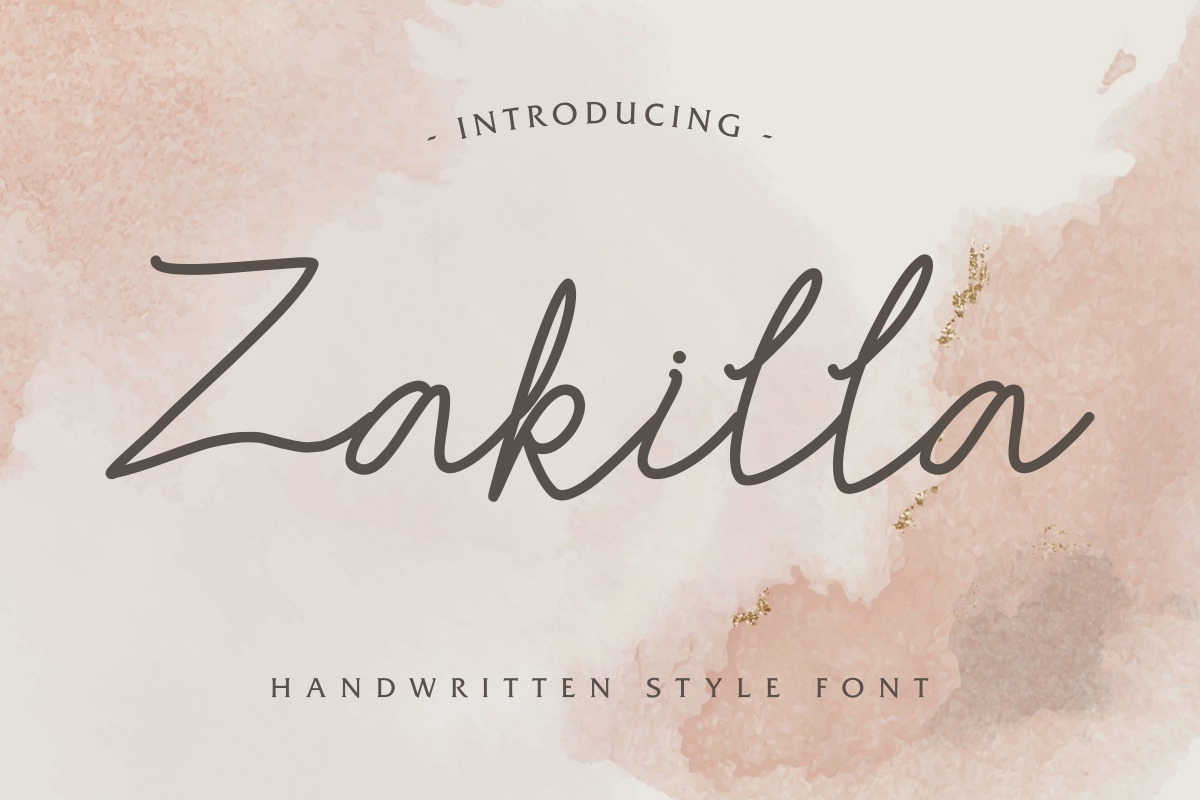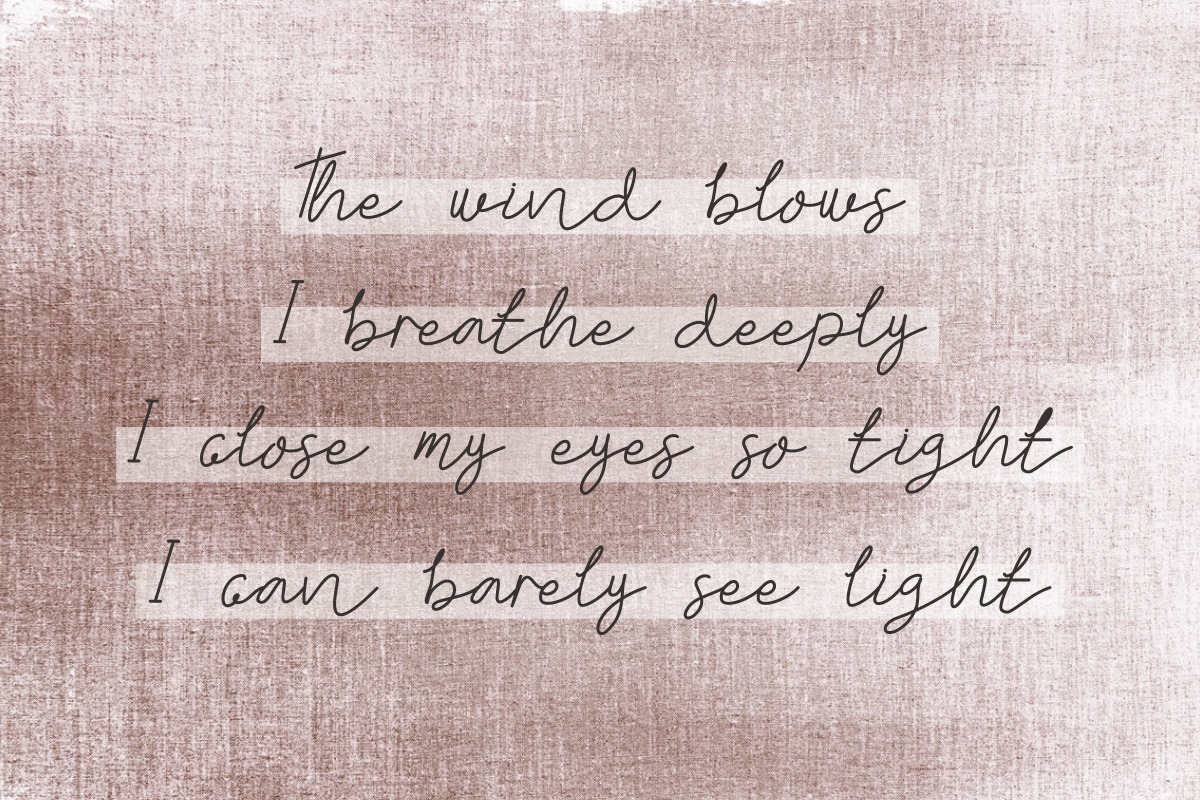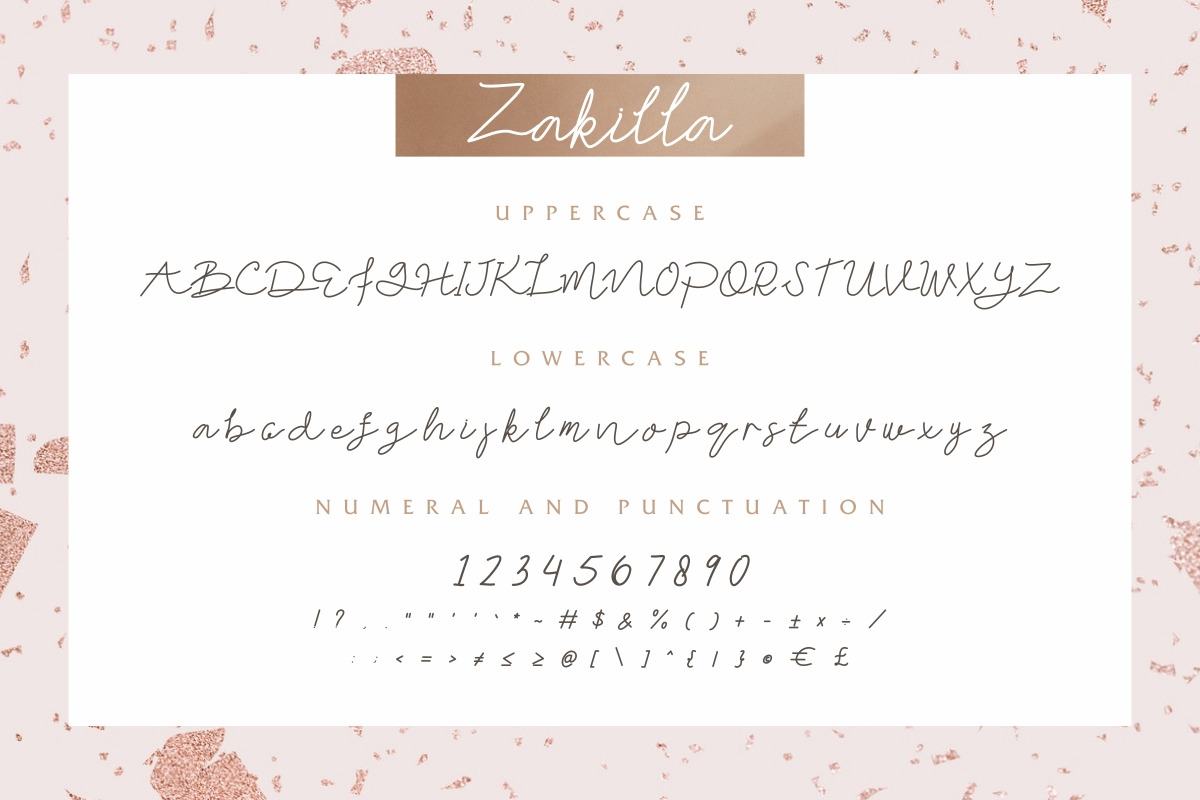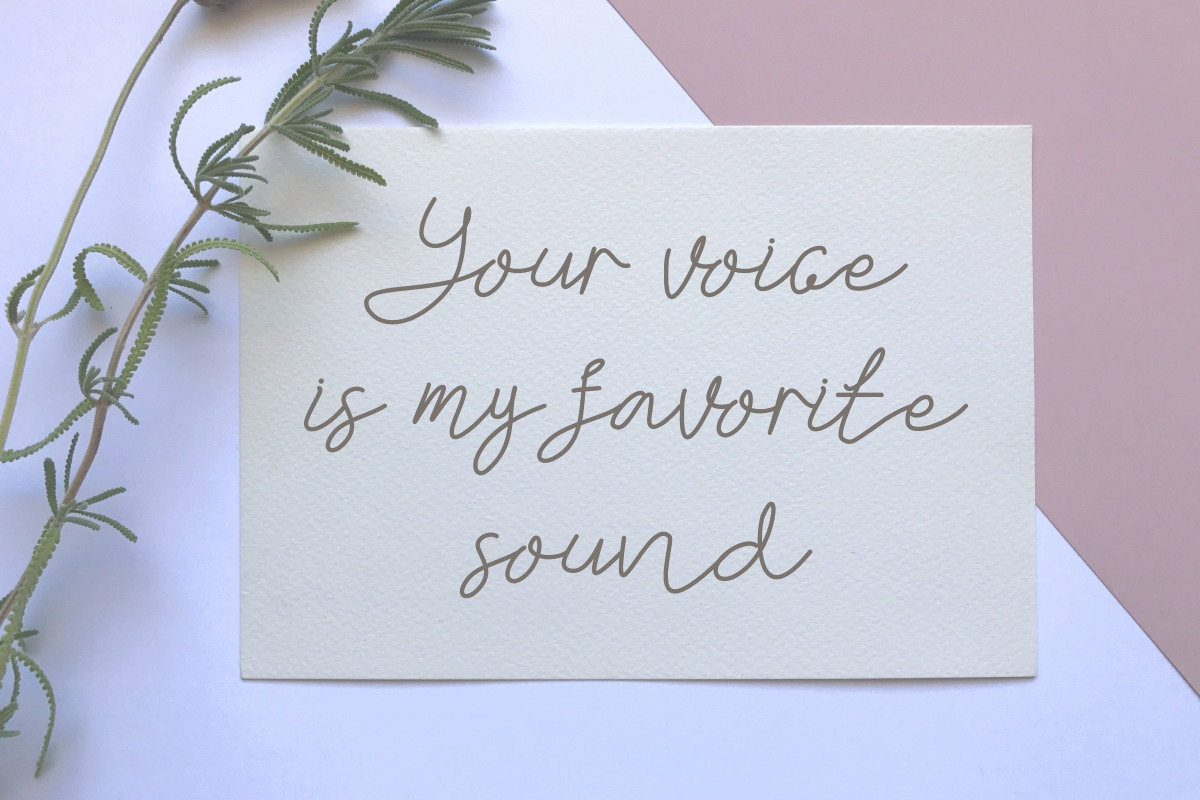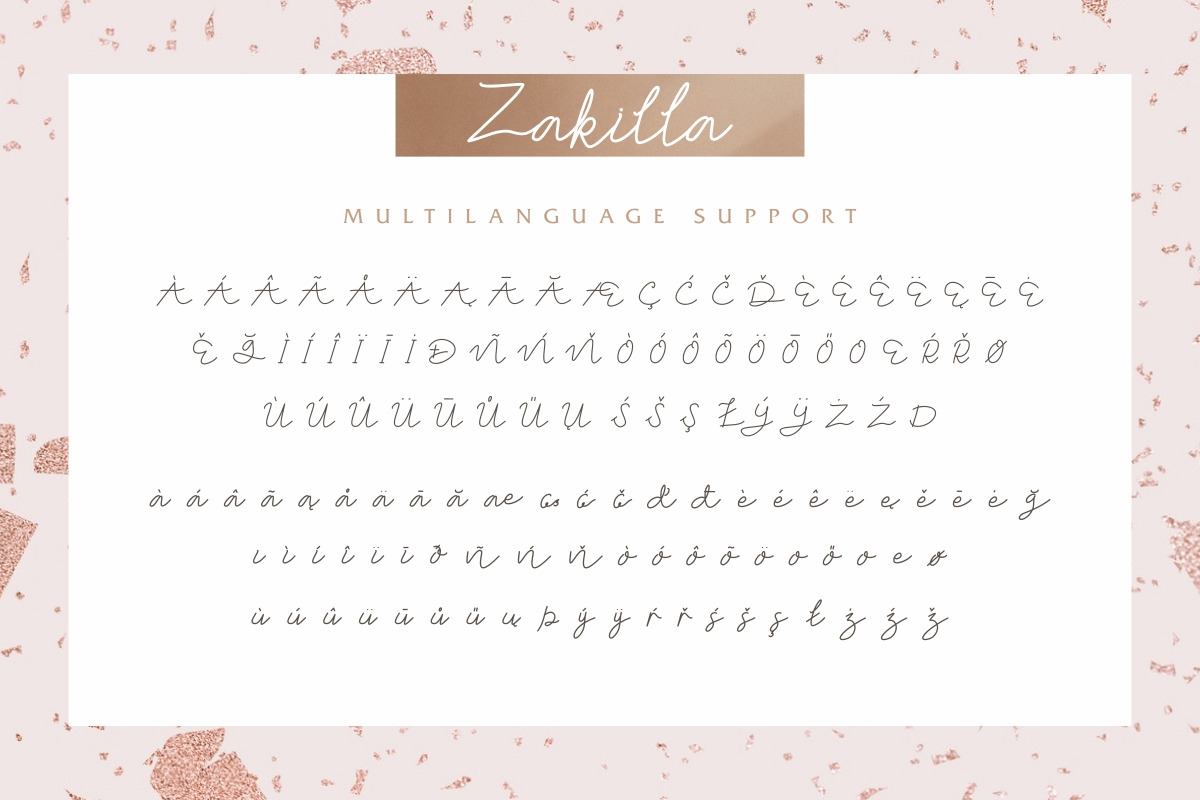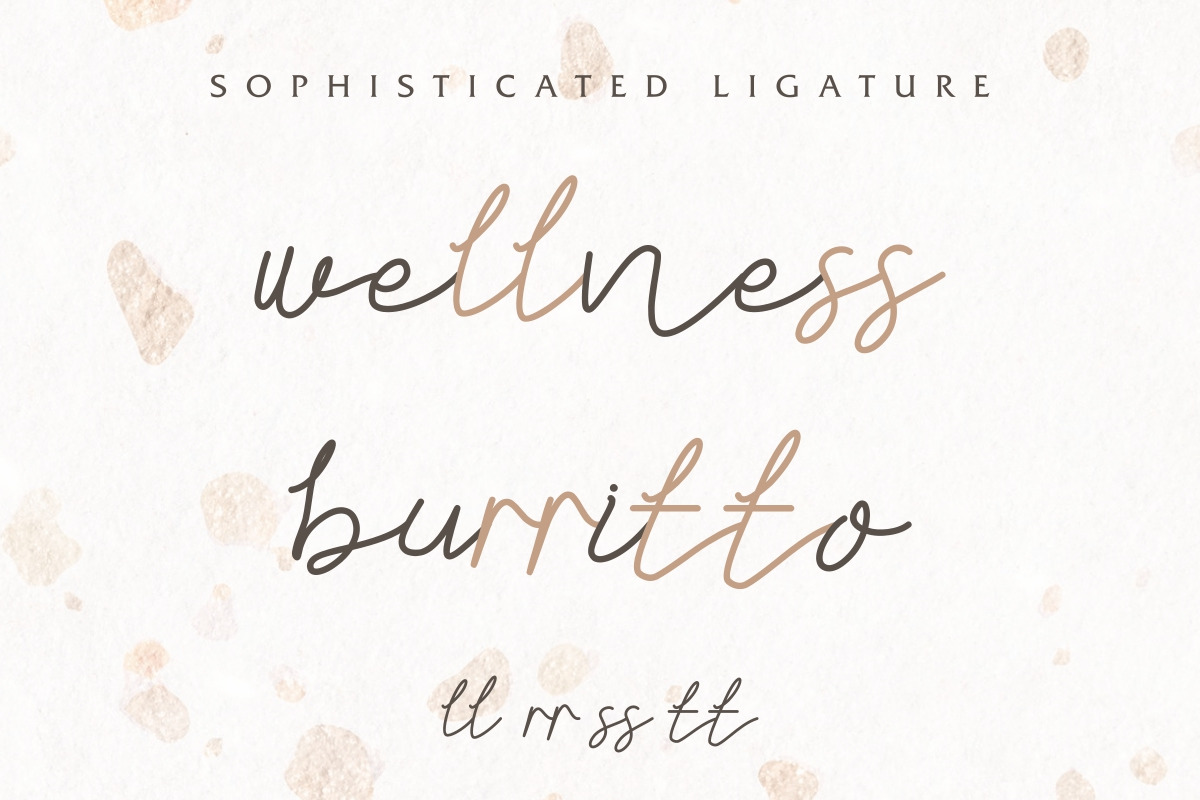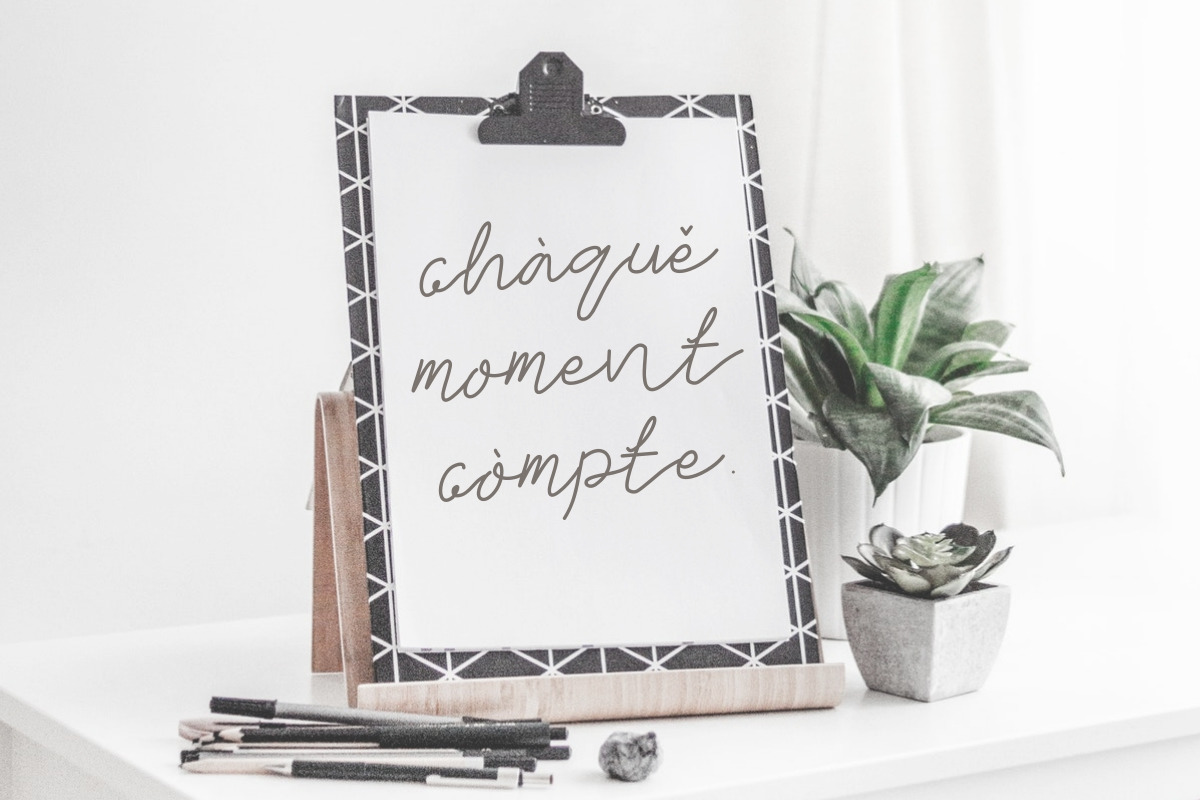
Zakilla Handwritten Script Font
Edric Studio, presenting : Zakilla Font
Zakilla Font is a handwritten script font. Made in Indonesia, this font is now ready to rock the world.
Zakilla Font has international languages characters too. This font is a unique natural font with exclusive glpys where you cant find it anywhere else. Zakilla Font will be awesome for any projects : signature, logo, label, signage, flyer, headline etc